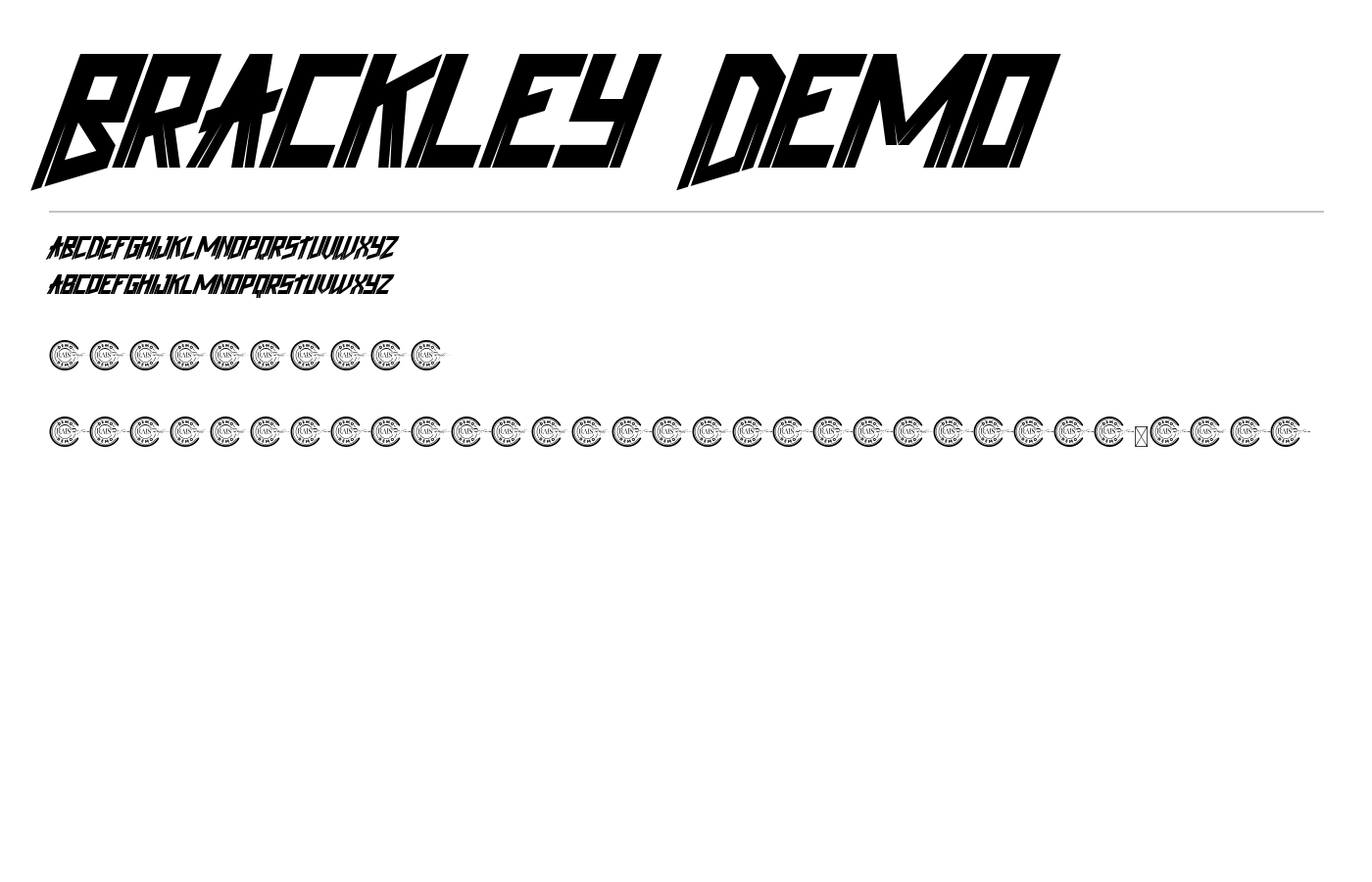
Brackley Demo is a bold, condensed sans serif font with an edgy, geometric style characterized by sharp angles and dynamic slants. Its high contrast and narrow letterforms create a striking, energetic look ideal for sports branding, futuristic designs, and impactful headlines that demand attention. This font works best in logo creation, posters, and editorial titles where a strong, modern personality is needed.
Brackley Demo Font
About Brackley Demo Font
| Font family | Brackley Demo Font |
| Designer | Shalsha & Sarah Suci P |